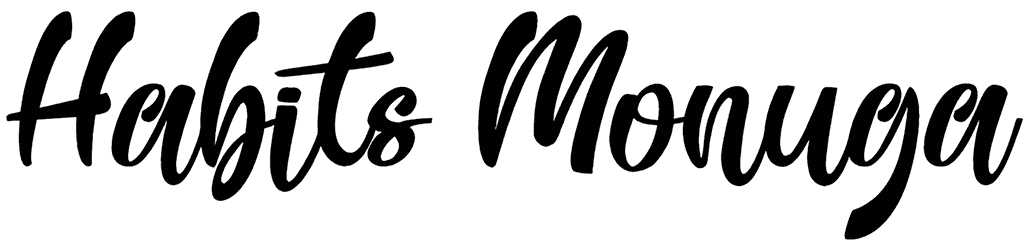
Habits Monuga Font
Habits Monuga is a gorgeous font that brings a sense of passion that makes the readers fall in love with your choice, and you can only expect this from a script font to give you such a feeling. The story doesn’t end here, you download this font and you find out that you got an excellent collection containing all the characters.